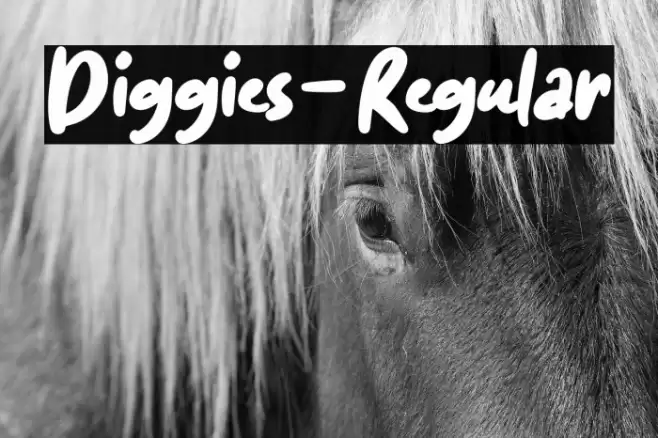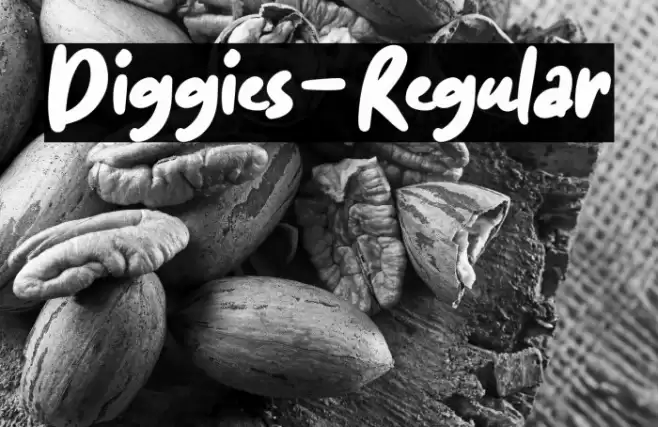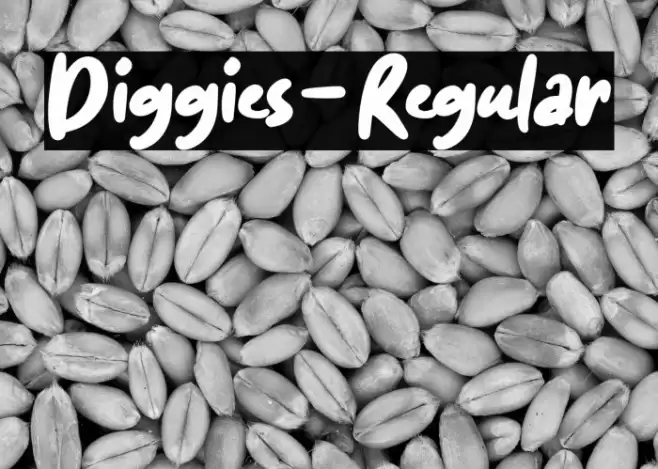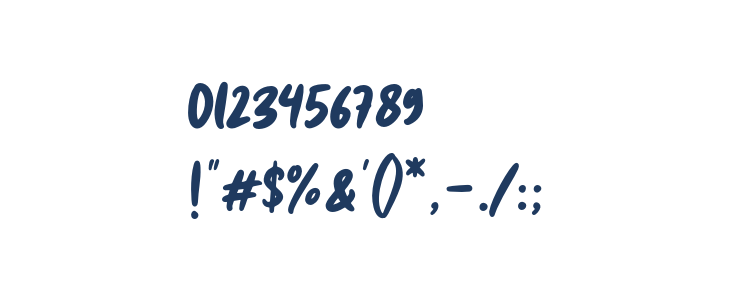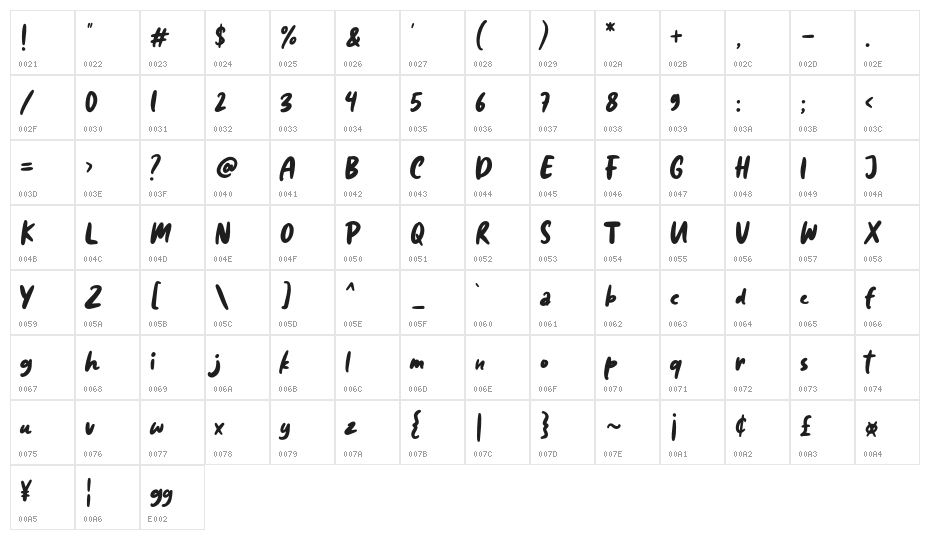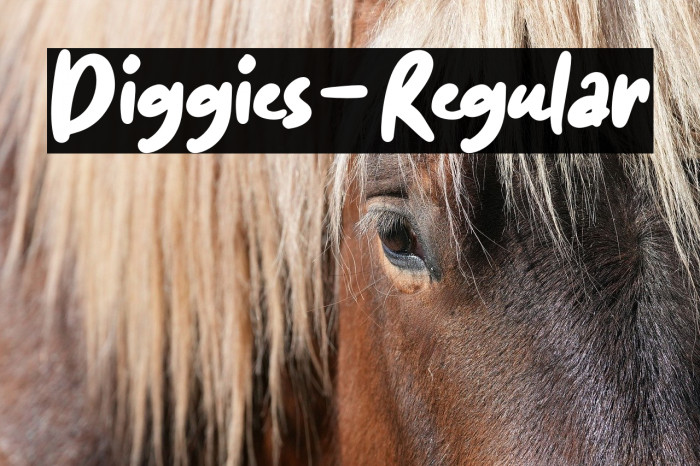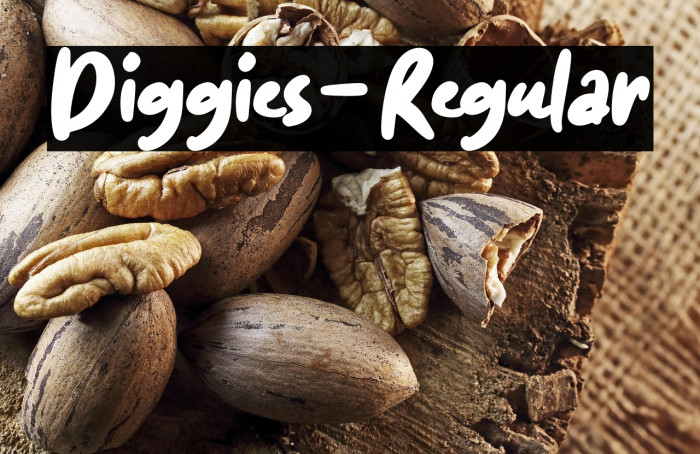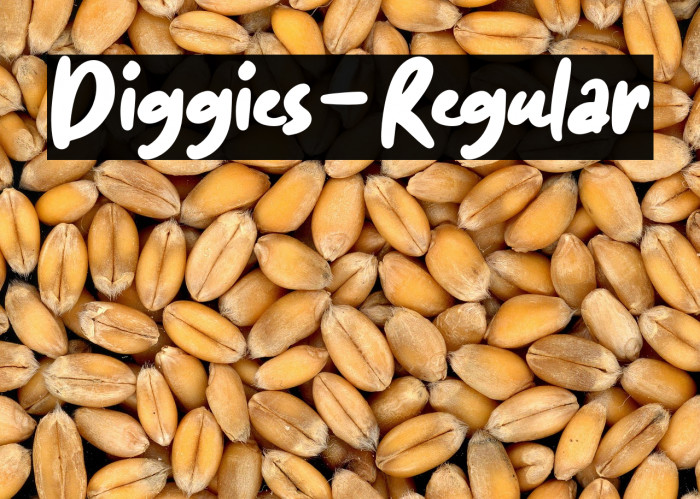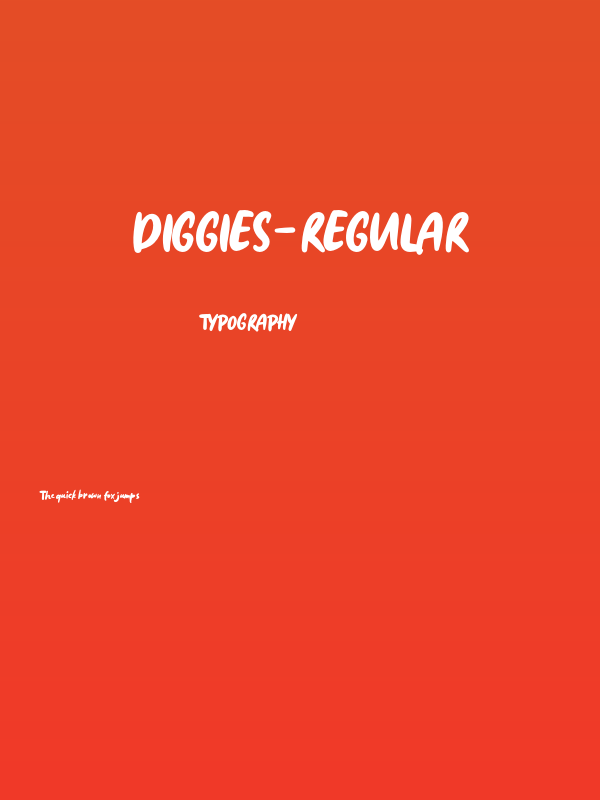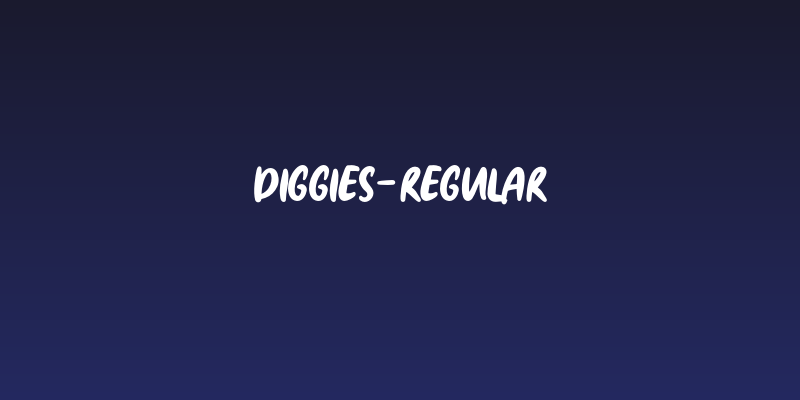
Diggies-Regular Font
Diggies-Regular Description
This font features a bold and playful handwritten style, characterized by its thick strokes and rounded edges. The letters are slightly slanted, giving a dynamic and energetic feel. The uppercase and lowercase letters maintain a consistent flow, with a casual and friendly appearance. Numbers and special characters are designed to match the overall aesthetic, making them easily readable while retaining the font's unique charm. This font is perfect for projects that require a personal touch or a fun, informal vibe.
A bold, playful handwritten font with thick strokes and rounded edges from Regular fonts.
- Proposed Projects: Ideal for greeting cards, children's books, playful branding, and social media graphics.
- Overall Style: Playful, Casual
- Use Case: Headlines, Logos, Informal Text